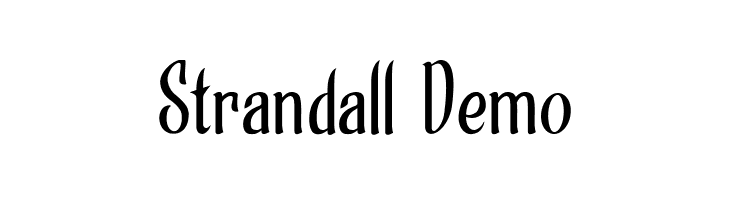
A modern, decorative font with tall, narrow letterforms and subtle curves.
A bold, jagged font with sharp, irregular edges for a dramatic effect.
A bold, hand-drawn font with a playful and sketch-like appearance.
A graceful and flowing script font with elegant, cursive strokes.
A whimsical, vine-like decorative font with playful and eerie characteristics.
A graceful script font with flowing, interconnected characters and a sophisticated style.
A playful, handwritten script font with smooth, flowing characters.
A playful, handwritten font with dynamic, cursive-like strokes.
A playful and energetic handwritten font with bold, expressive letterforms.
A geometric, modern font with an octagonal structure and sharp angles.